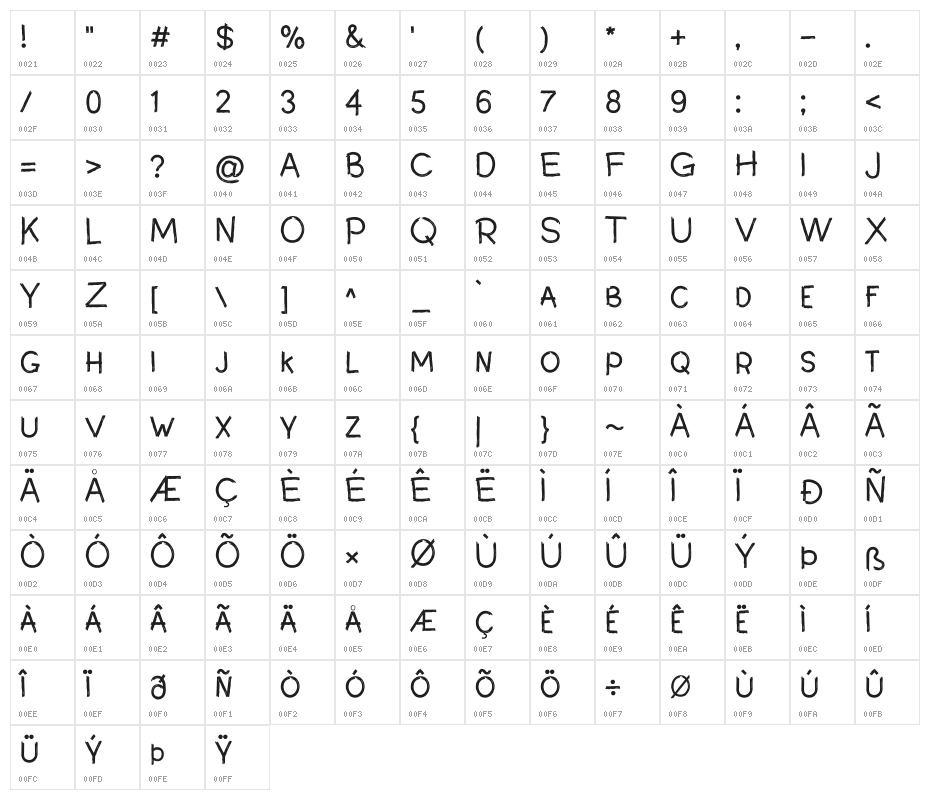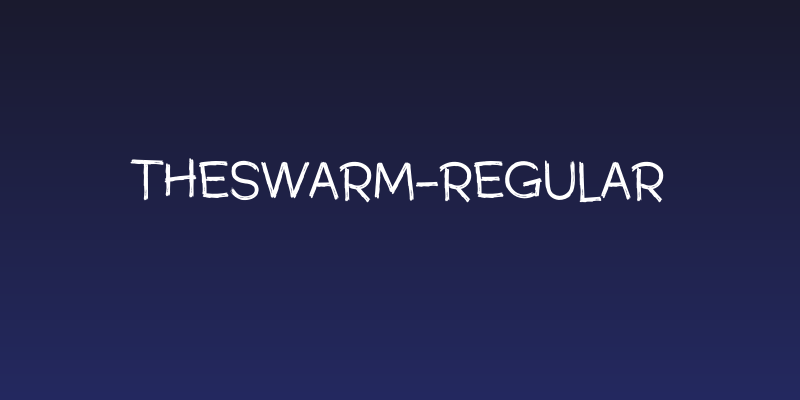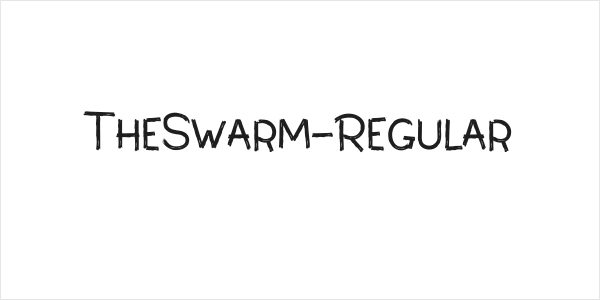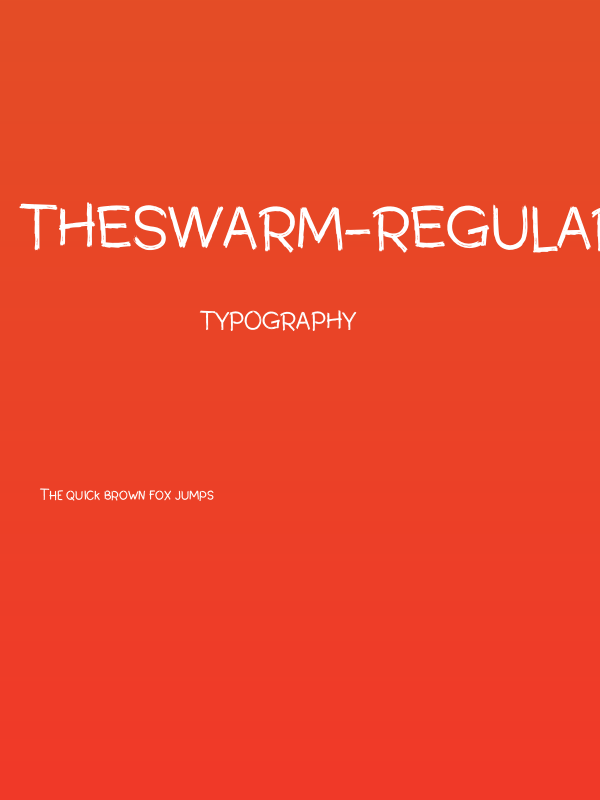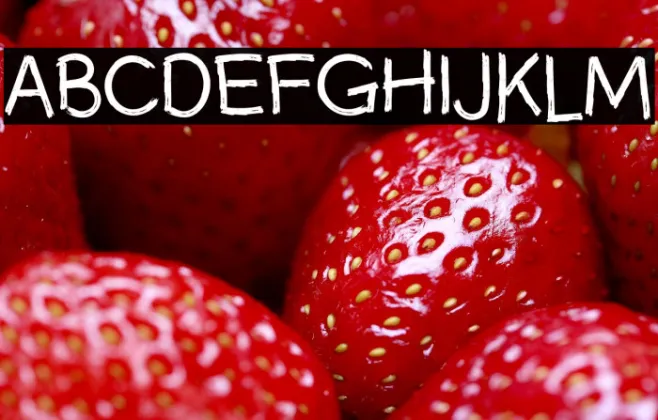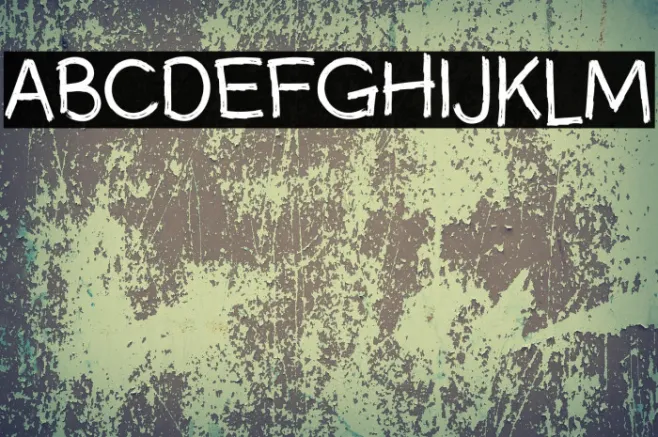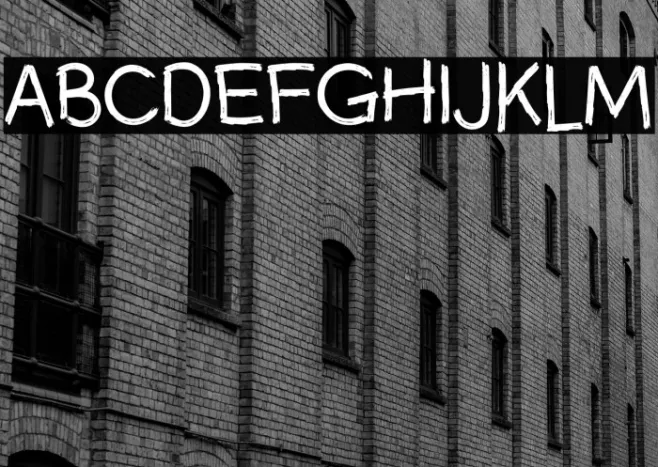
TheSwarm-Regular Font
TheSwarm-Regular Description
This font features a bold, hand-drawn style with a rough, textured appearance that gives it a dynamic and energetic feel. The characters are slightly irregular, adding a sense of movement and spontaneity. The uppercase letters are prominent and assertive, while the lowercase letters maintain the same boldness, ensuring consistency across text. Numbers and special characters follow the same design ethos, making them stand out with their unique, artistic flair. This font is perfect for projects that require a touch of creativity and individuality, such as posters, album covers, or artistic branding.
| Proposed Projects | Ideal for posters, album covers, artistic branding, and creative projects. |